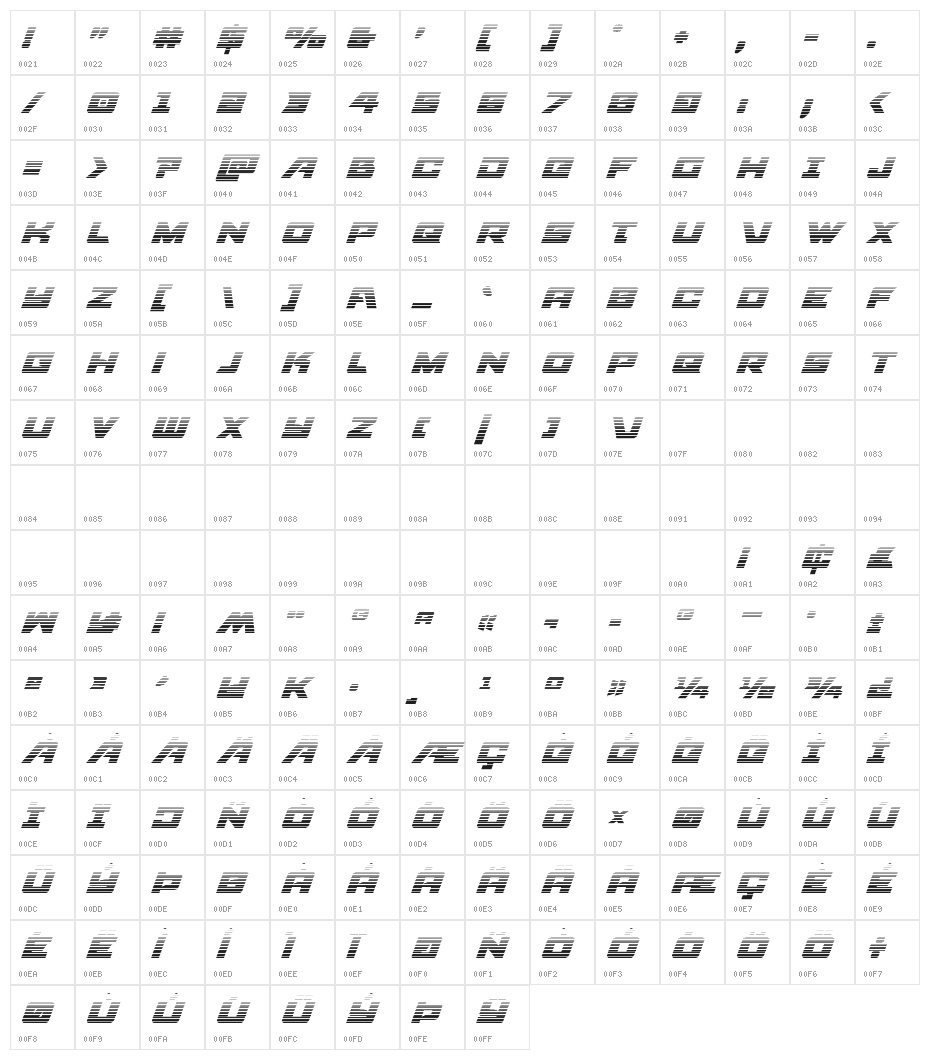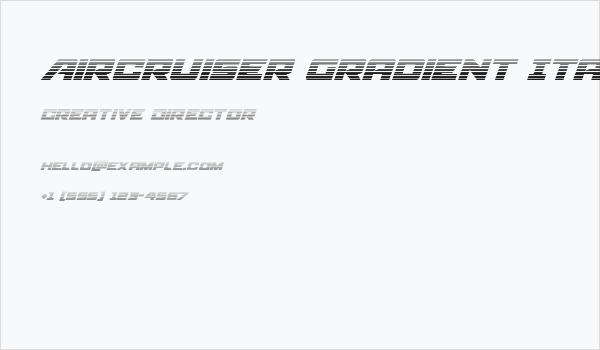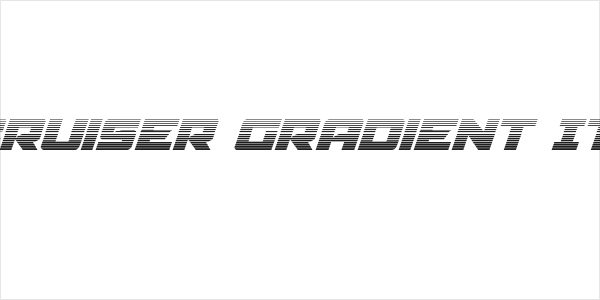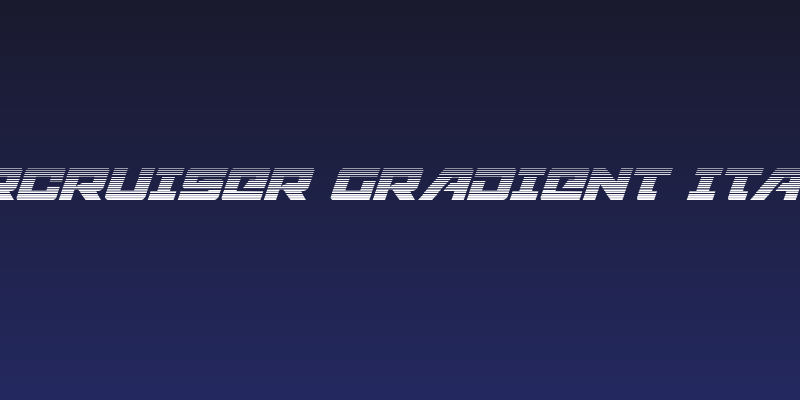
Aircruiser Gradient Italic Font
Aircruiser Gradient Italic Description
This font features a bold, futuristic design with a gradient effect that creates a sense of movement and speed. The italicized style adds a dynamic and modern touch, making it ideal for projects that require a sense of innovation and forward-thinking. The characters are composed of horizontal lines that vary in thickness, giving the font a unique layered appearance. This design choice enhances the visual interest and makes it stand out in any application. The uppercase and lowercase letters maintain a consistent style, ensuring readability while still offering a distinctive look. The numbers and special characters are crafted with the same attention to detail, providing a cohesive appearance across all elements.
| Proposed Projects | Ideal for technology branding, sci-fi themed projects, automotive advertisements, and modern digital interfaces. |